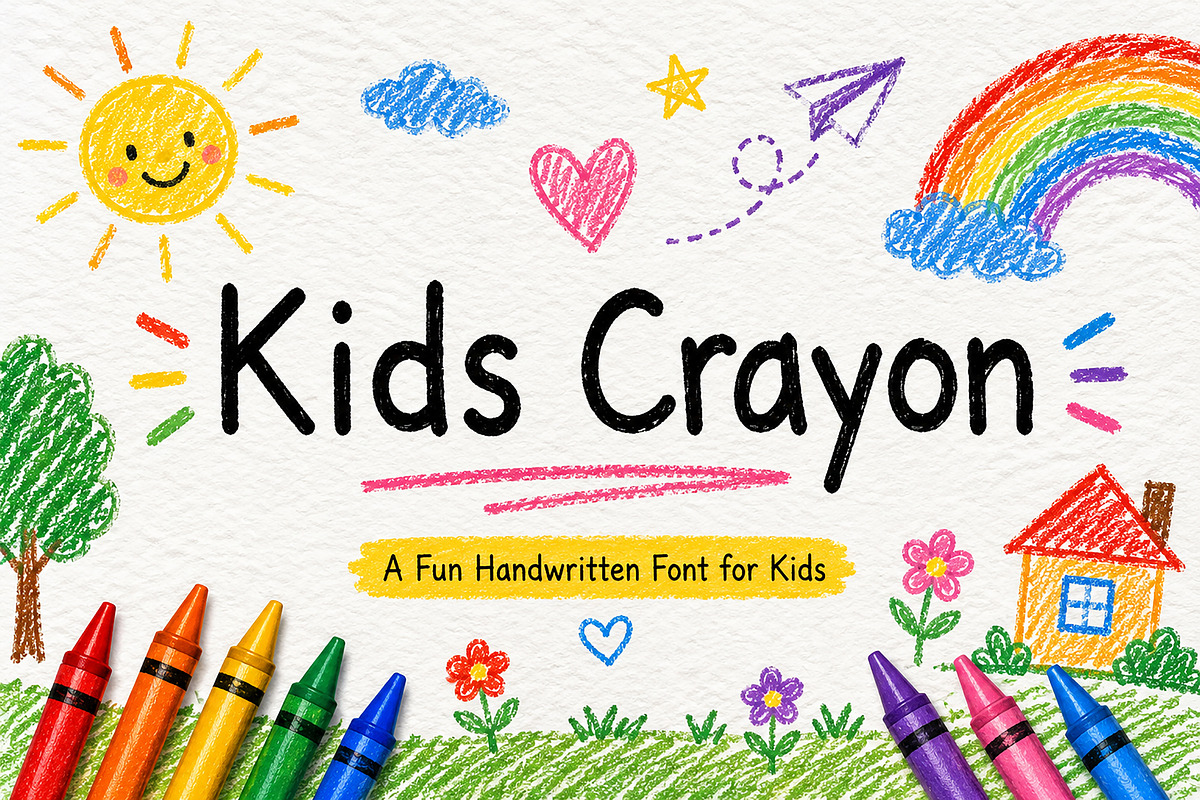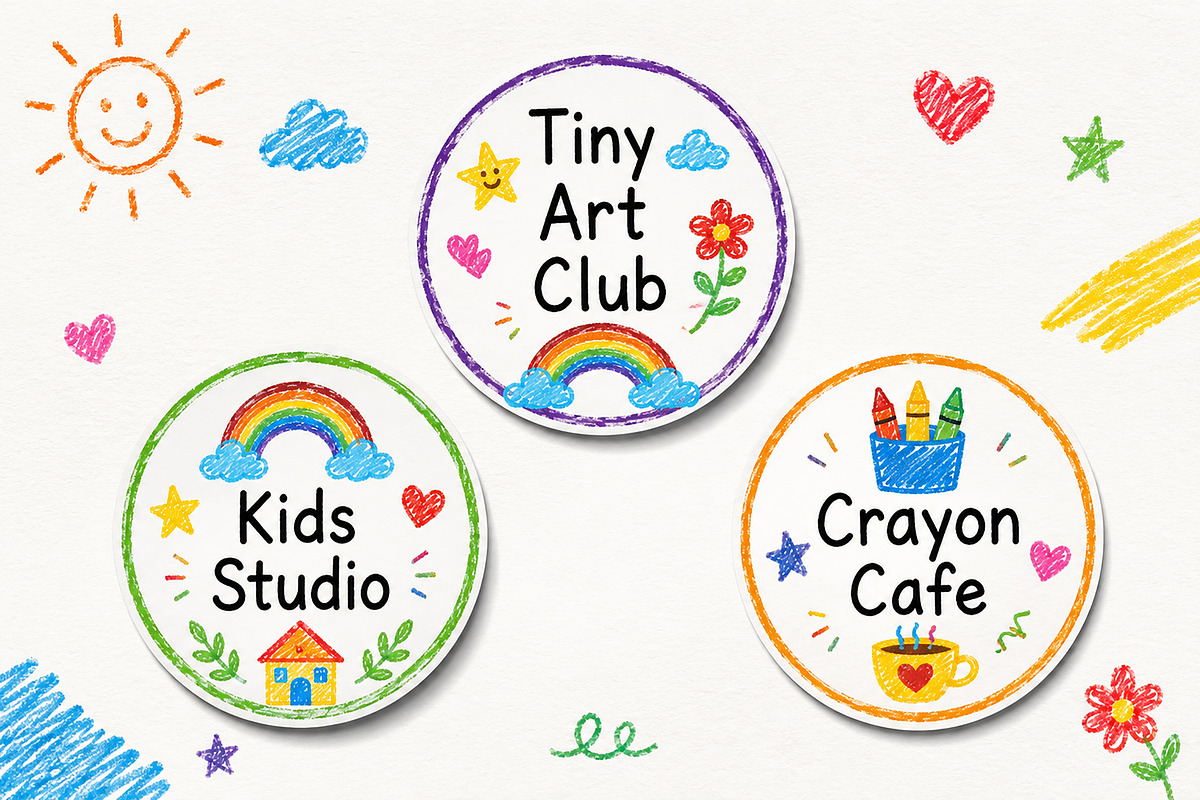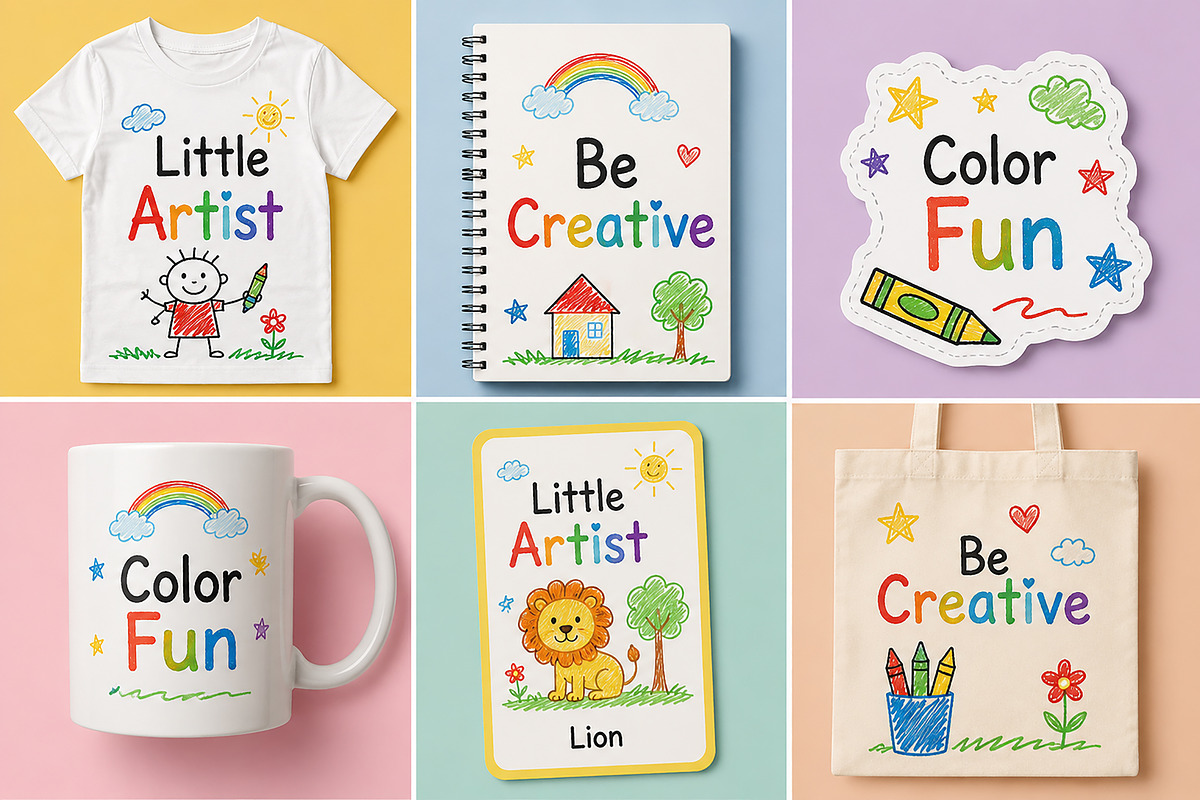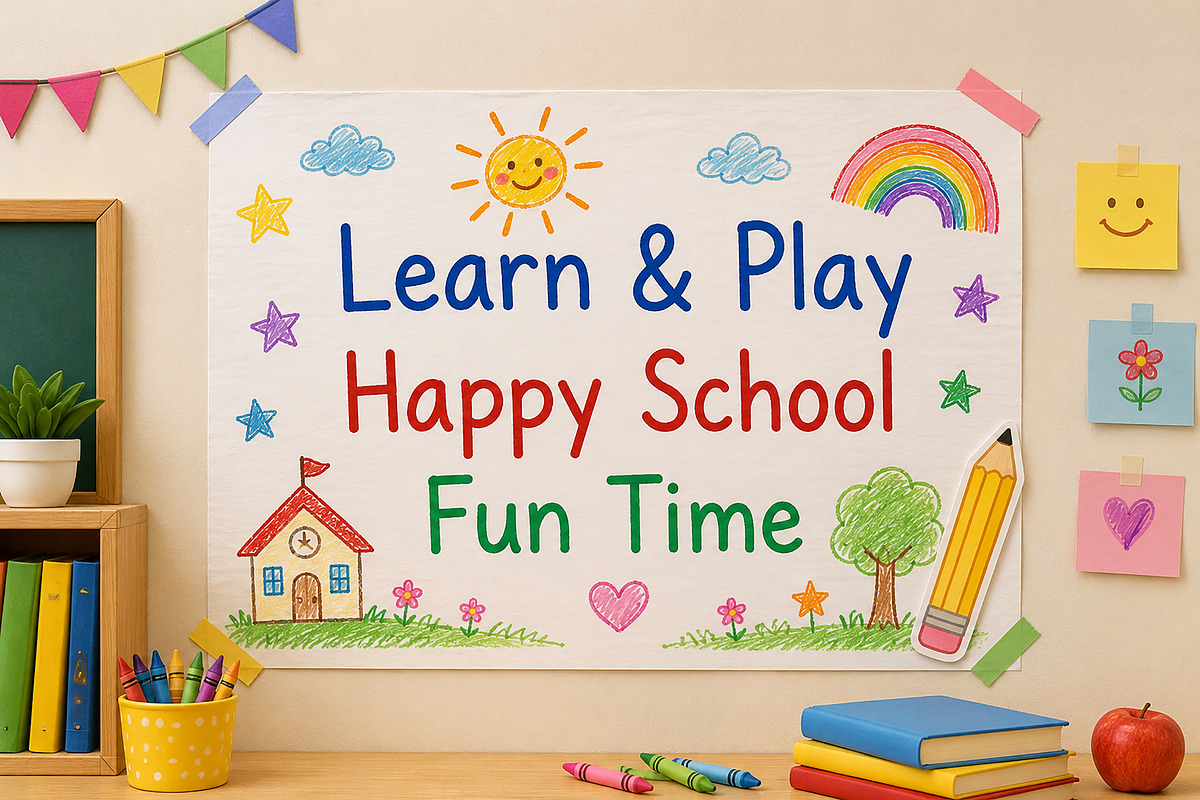
Kids Crayon
Kids Crayon – Playful Handwritten Font
Kids Crayon is a fun, playful, and childlike handwritten font inspired by real crayon drawings and children's creativity. With its smooth hand-drawn strokes and friendly personality, this font is perfect for kids-themed projects, classroom materials, school activities, educational worksheets, storybooks, toy branding, posters, stickers, Cricut crafts, and playful product designs.
Designed to bring a cheerful and imaginative feel to your work, Kids Crayon adds warmth, creativity, and fun to any design. Whether you're creating learning resources, party invitations, nursery decor, or colorful branding, this font helps your projects stand out with a charming handmade look.
Kids Branding
Preschool & Kindergarten Materials
Educational Worksheets
Classroom Decorations
Children's Books
Toy Packaging
Birthday Invitations
Posters & Flyers
Stickers & Cricut Projects
T-Shirts & Merchandise
Nursery Decor
Craft Projects
Greeting Cards